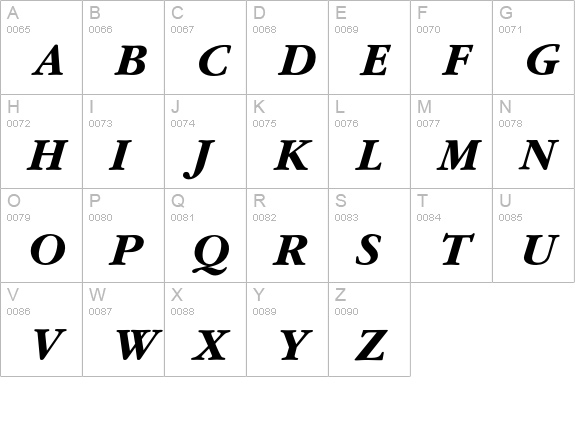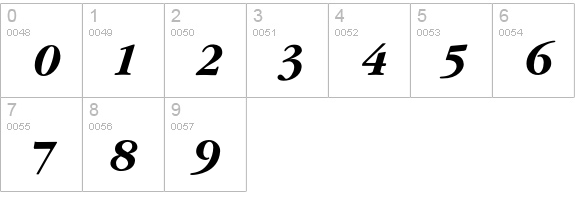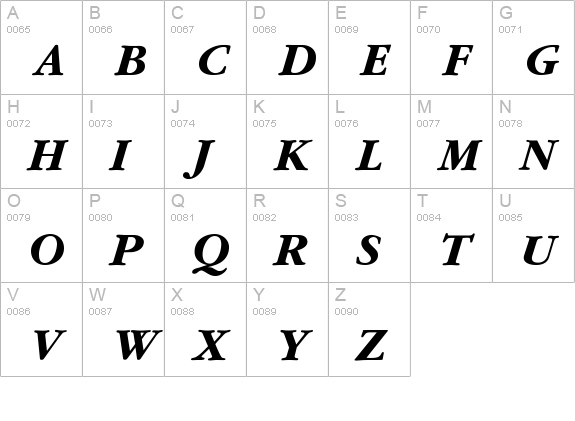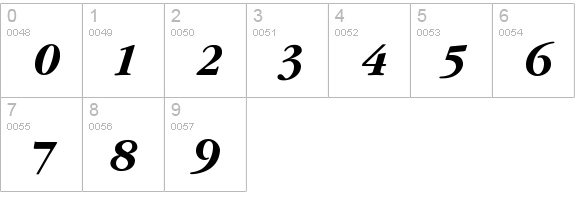
GaramondBoldItalic Font Details
GaramondBoldItalic font is a stunning typeface that effortlessly combines elegance and sophistication. It is the perfect choice for those seeking a touch of class and refinement in their designs. The bold and italicized variations of this font add a unique and captivating flair, making it ideal for headlines, titles, and emphasis within text. With its sleek and stylish curves, GaramondBoldItalic font exudes a timeless charm that is both sophisticated and modern. The careful attention to detail and precision in its design make it a standout choice for any project, whether it be a professional document, a creative advertisement, or an eye-catching logo. What makes GaramondBoldItalic font even more appealing is the fact that it is freely available to download at FontsMarket.com. This means that you can easily access and utilize this exceptional font without any cost or restrictions. Whether you are a designer, a student, or simply someone with a passion for typography, GaramondBoldItalic font offers a high-quality and versatile option that won't break the bank. So why wait? Enhance your designs with the beauty and grace of GaramondBoldItalic font. Download it for free at FontsMarket.com and experience the seamless integration of elegance and functionality in your projects. Don't miss out on this opportunity to elevate your design game and make a lasting impression with this remarkable font.